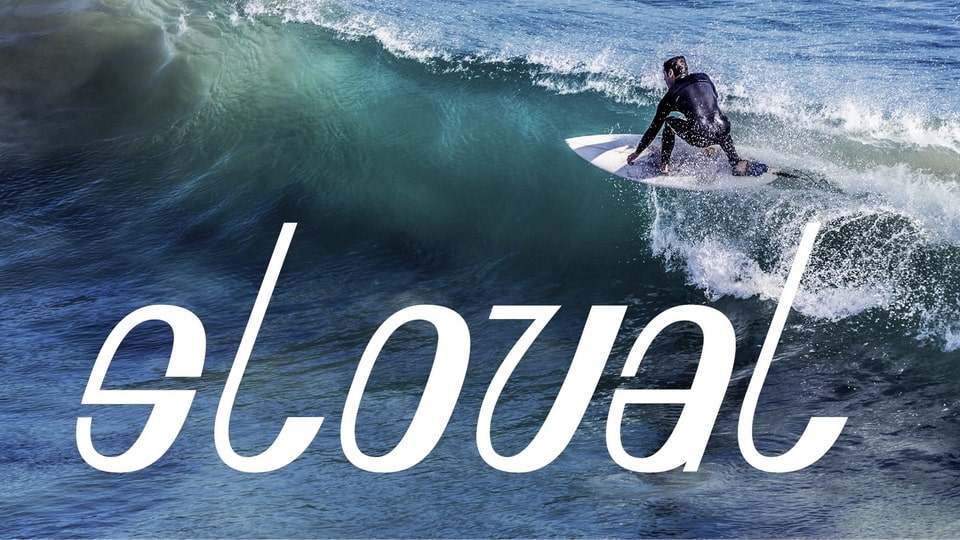
Download Sloval font, a slanted display sans serif typeface with an oval base and two stroke thicknesses. Sloval font is dynamic, bright, contrasting. By nature, it resembles the ocean: soft, but bold.
Designer: Anastasia Vokina